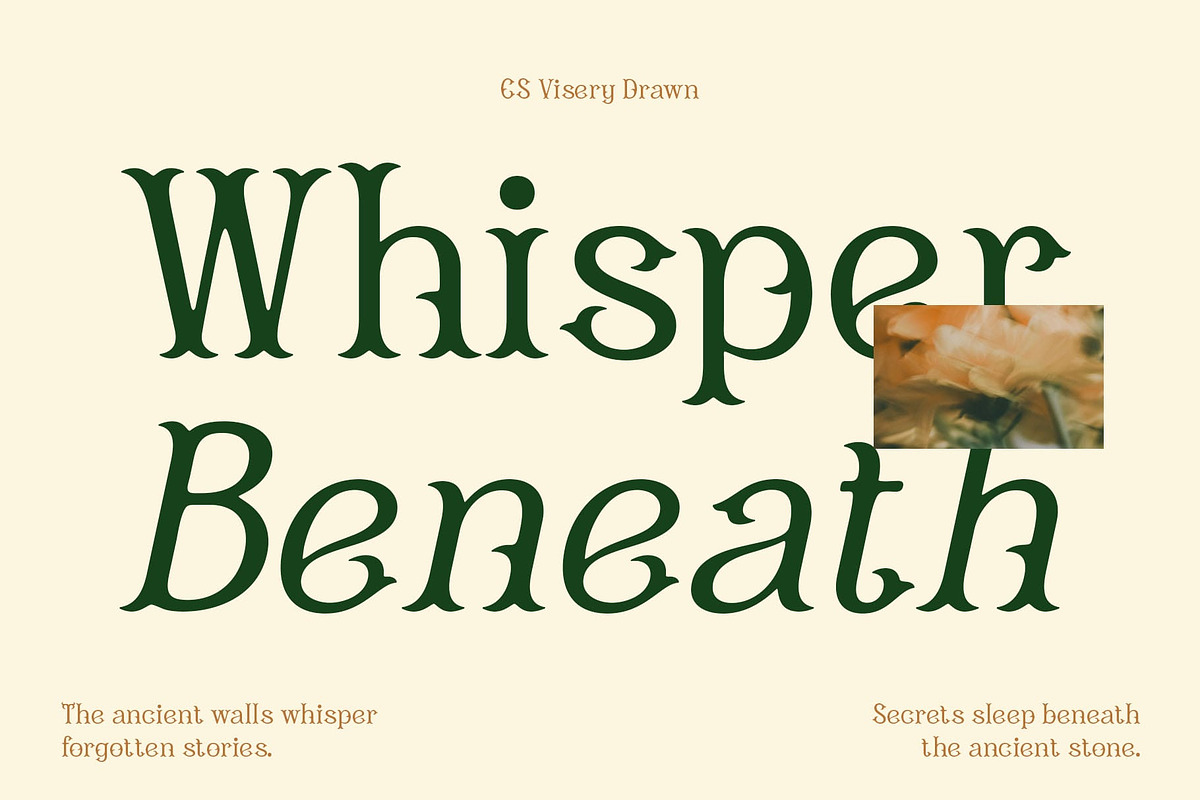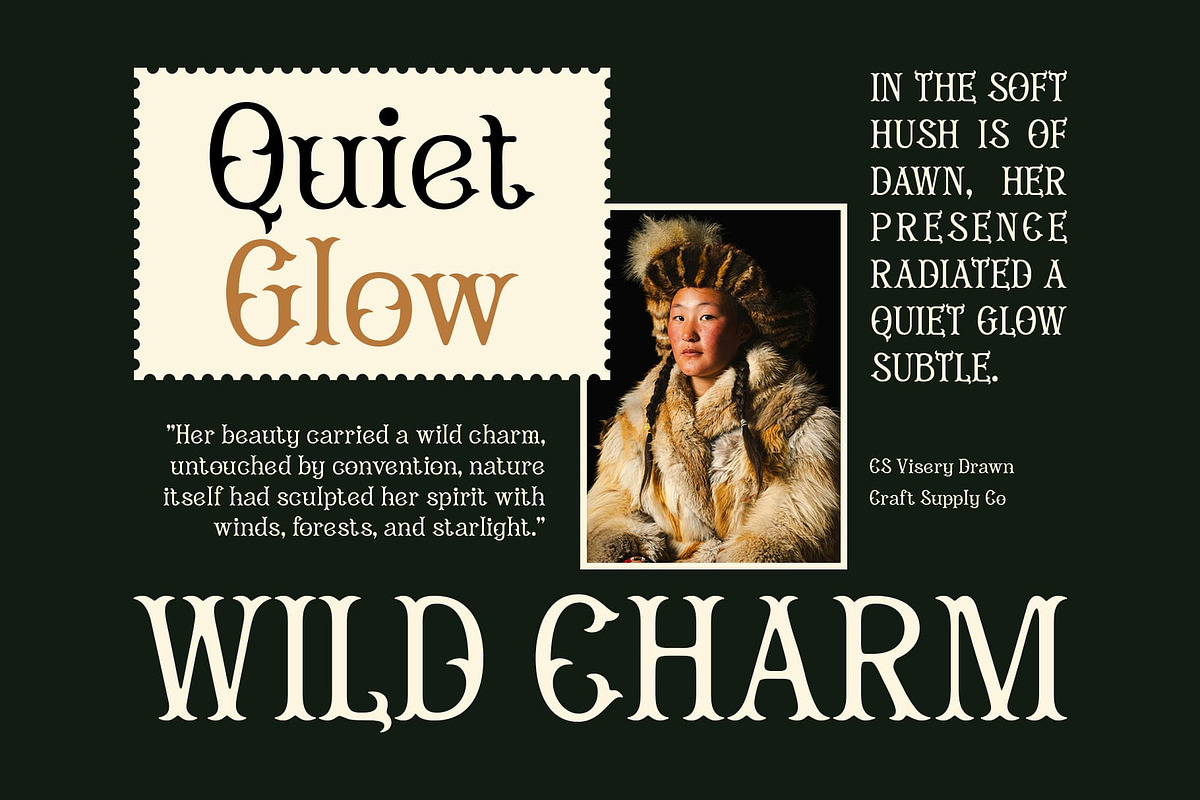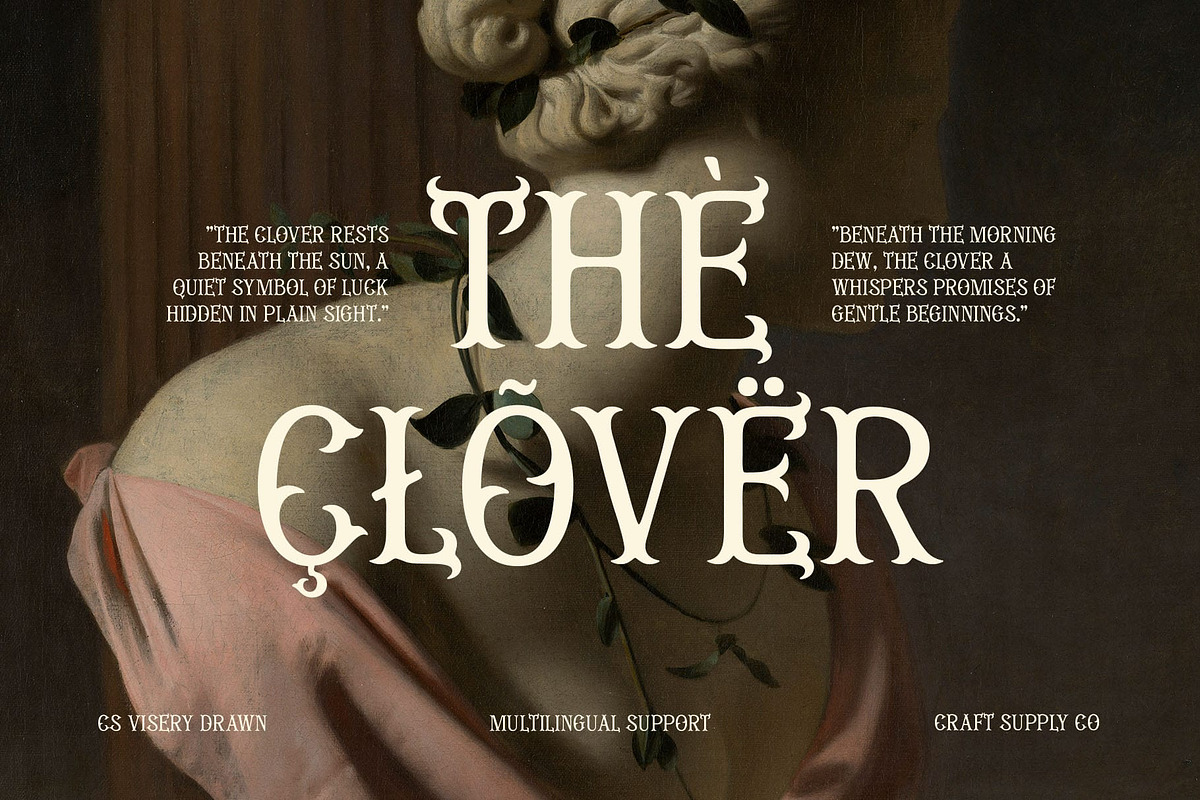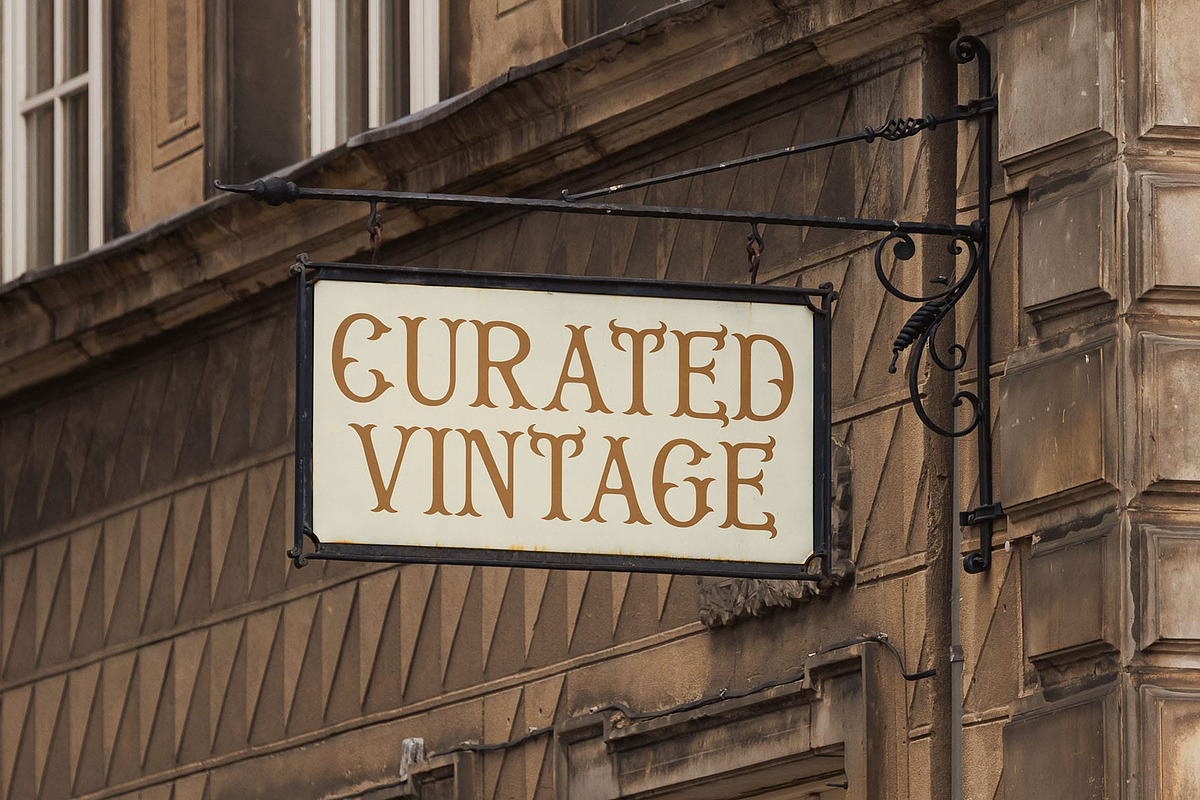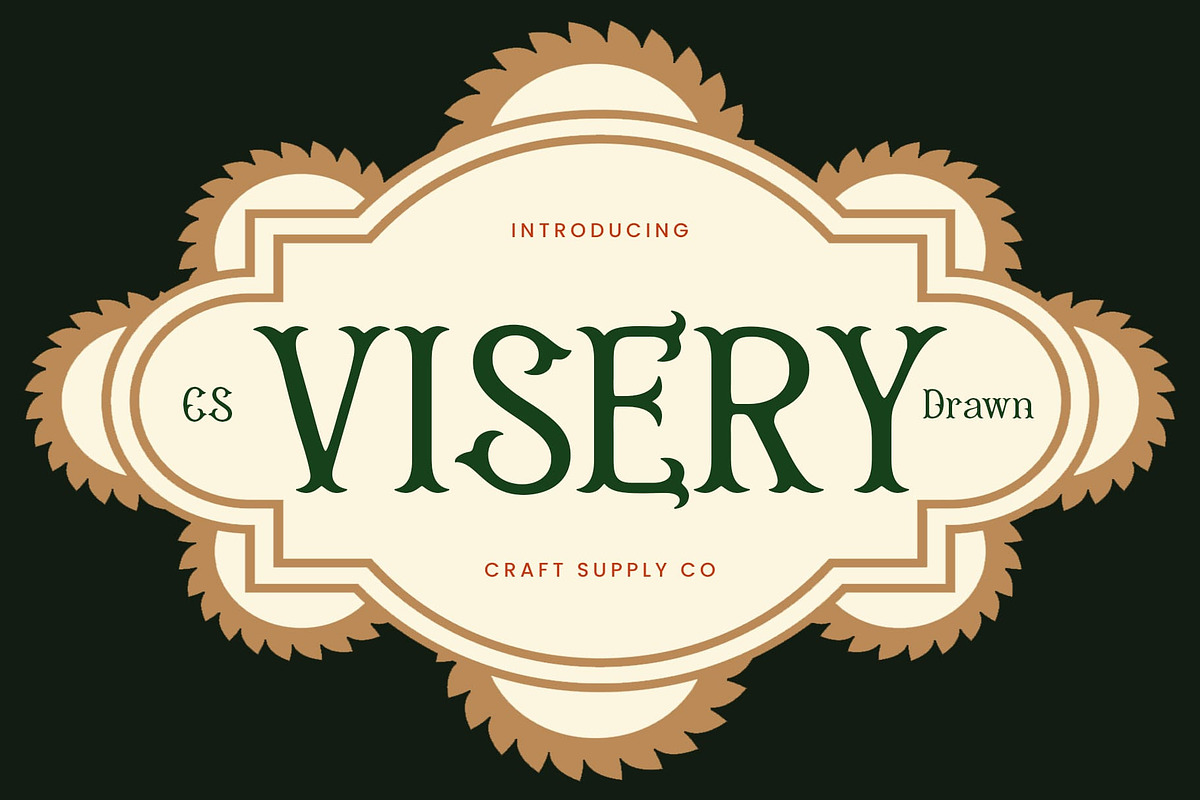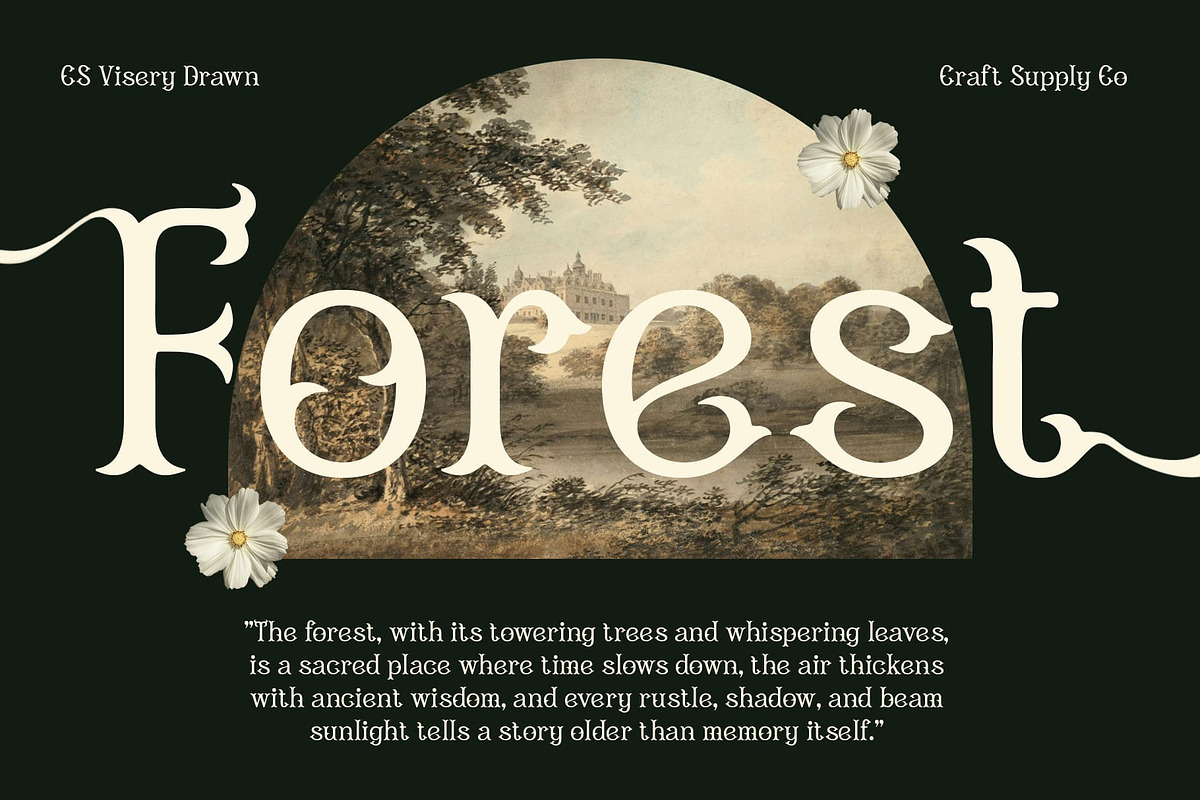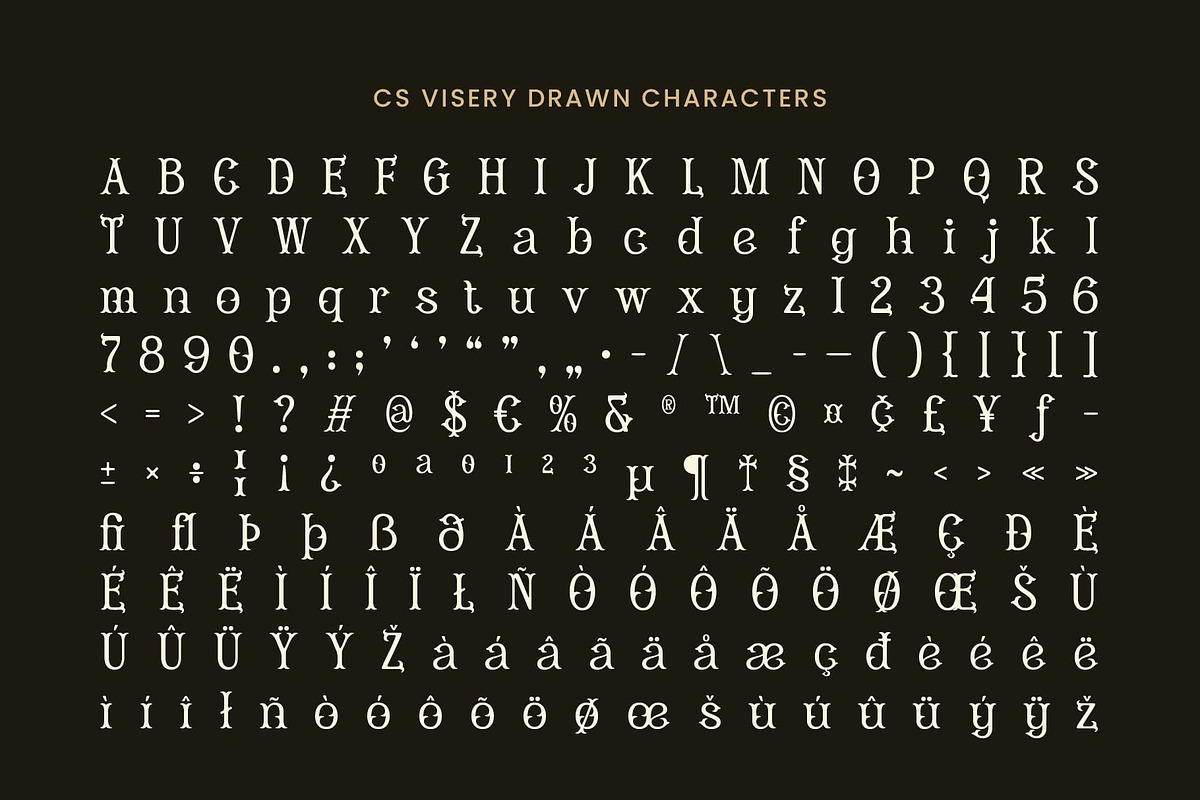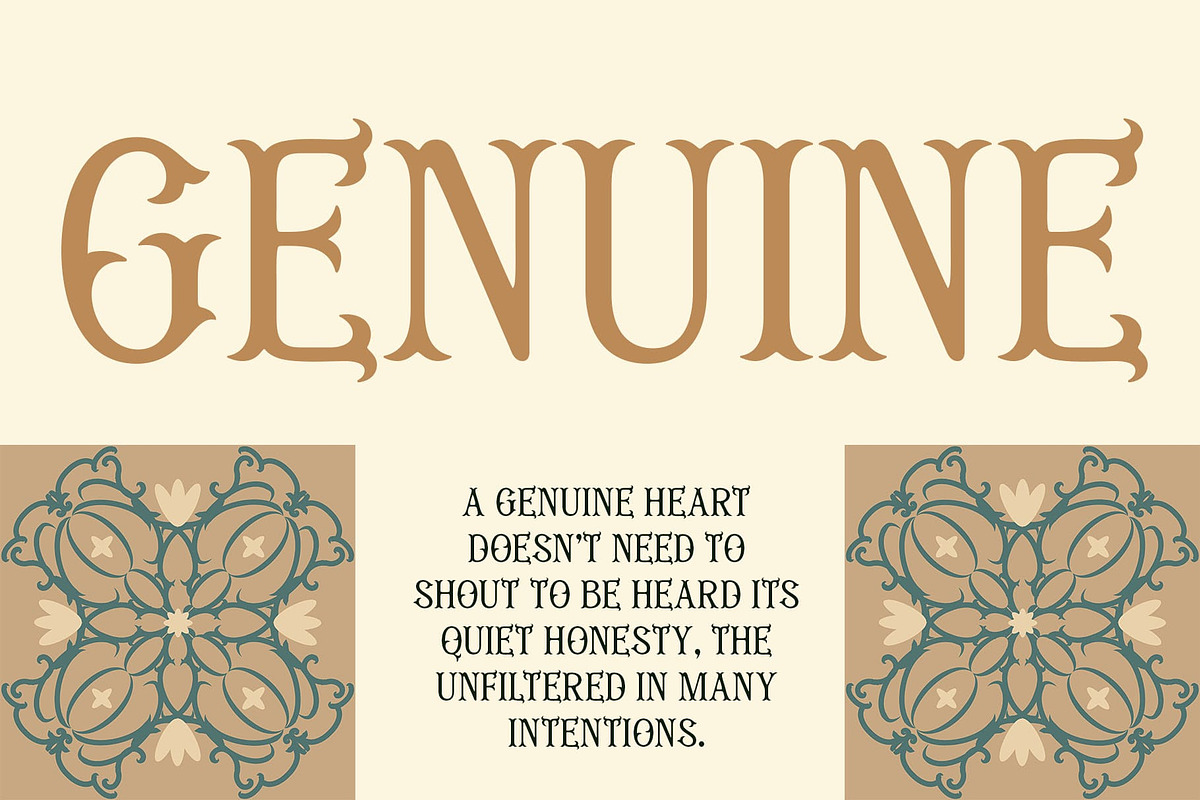
CS Visery Drawn
CS Visery Drawn – A Captivating Font Inspired by Nature and Fantasy
Classic Modern Display with Flora-Inspired Elegance This is a modern display font with letterforms inspired by the beauty of nature and the captivating allure of flora. The organic shapes evoke a sense of serenity and fantasy, blending nature’s elegance with the sophistication of contemporary design. Perfect for projects that wish to evoke a dreamy, imaginative atmosphere.
Organic and Natural Letterforms for a Fantasy Atmosphere The unique combination of organic, nature-inspired forms gives this modern display font an ethereal quality that transports any design into a world of beauty and imagination. Each letterform exudes a sense of grace and fluidity, enhanced by the delicate and whimsical elements reminiscent of plants, vines, and flowers.
Artistic Drawn Effect for a Textured, Handcrafted Look With its distinctive hand-drawn effect, CS Visery Drawn adds texture and artistry to each character. This artistic flair gives the font a personal touch, elevating any design with a sense of creativity and attention to detail.
Ideal for Beauty, Fantasy, and Imaginative Designs This modern font is perfect for designs that highlight themes of beauty, imagination, and elegance. It is ideal for projects that require an air of enchantment, from creative branding for beauty products to captivating editorial spreads or magical fantasy illustrations.